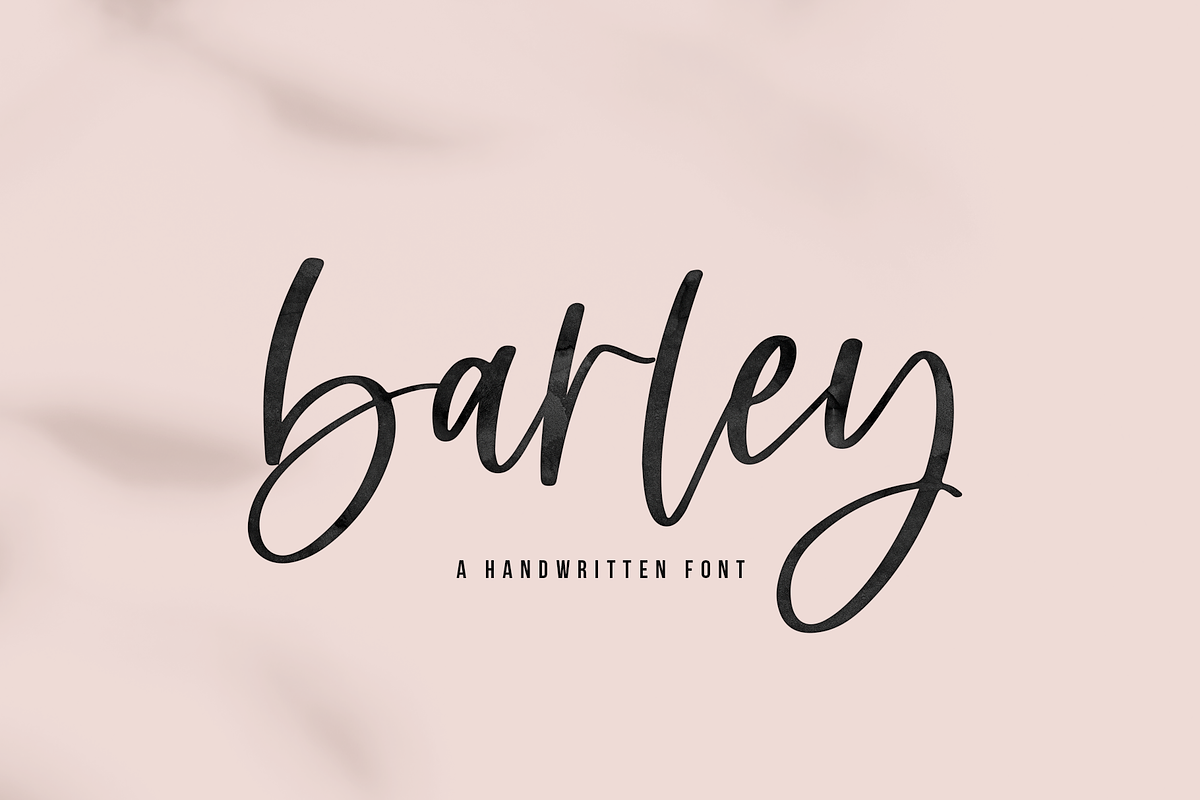
You must purchase this font for commercial use. However, you can download Barley | Handwritten Script Font Free Download for testing purposes. Barley is a charming and fluid handwritten script font that brings a casual, yet elegant, feel to any project. Its flowing letterforms and natural strokes make it ideal for wedding invitations, branding, logos, social media graphics, and personal stationery.
With a slightly rustic, authentic feel, Barley captures the essence of personal handwriting, adding a warm, inviting vibe to your designs. Whether you're working on a personal project or a creative brand identity, Barley | Handwritten Script Font Free Download allows you to explore its beauty and versatility before committing to commercial use.